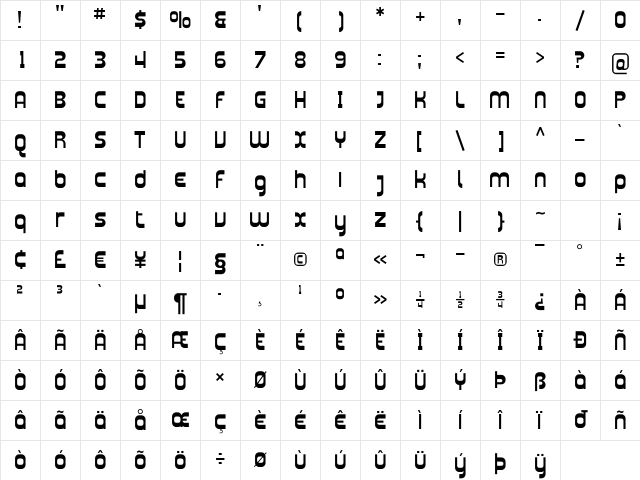
Plasmatica Regular Free Font
Plasmatica Regular
Designer: Derek Vogelpohl
Design Context for Plasmatica
Plasmatica is a composed and adaptable typeface that performs quietly and consistently across a wide range of design contexts.